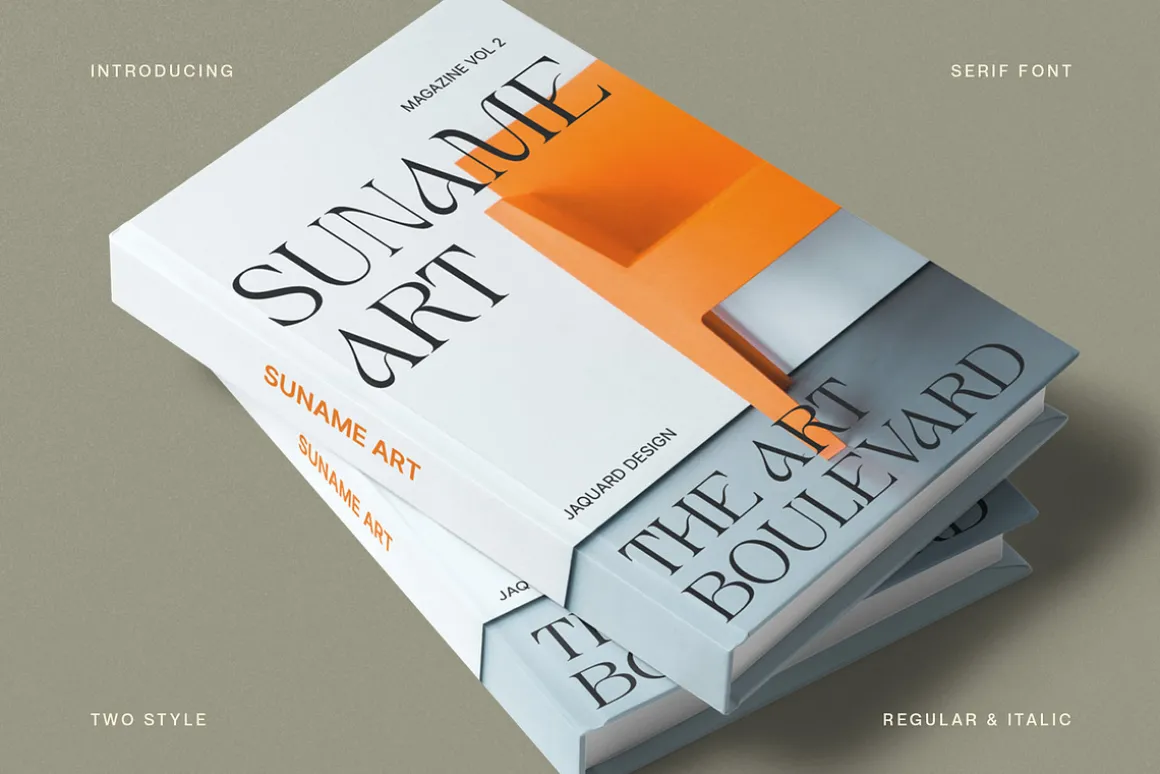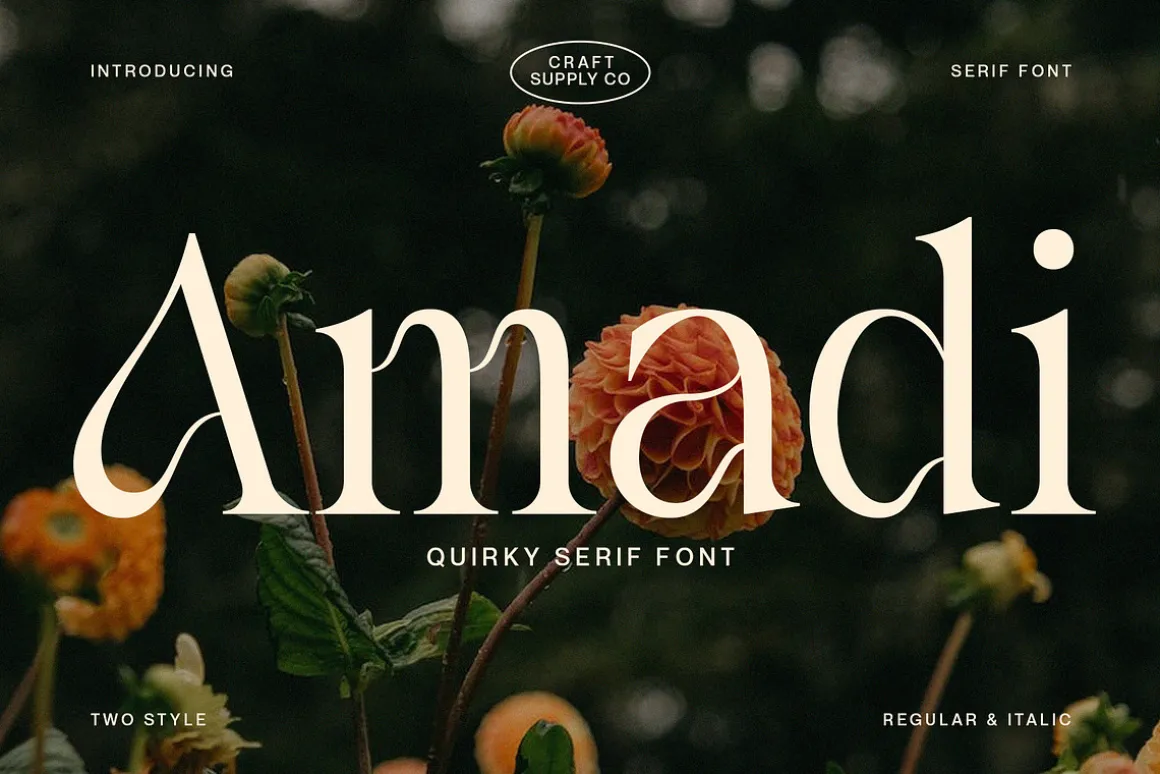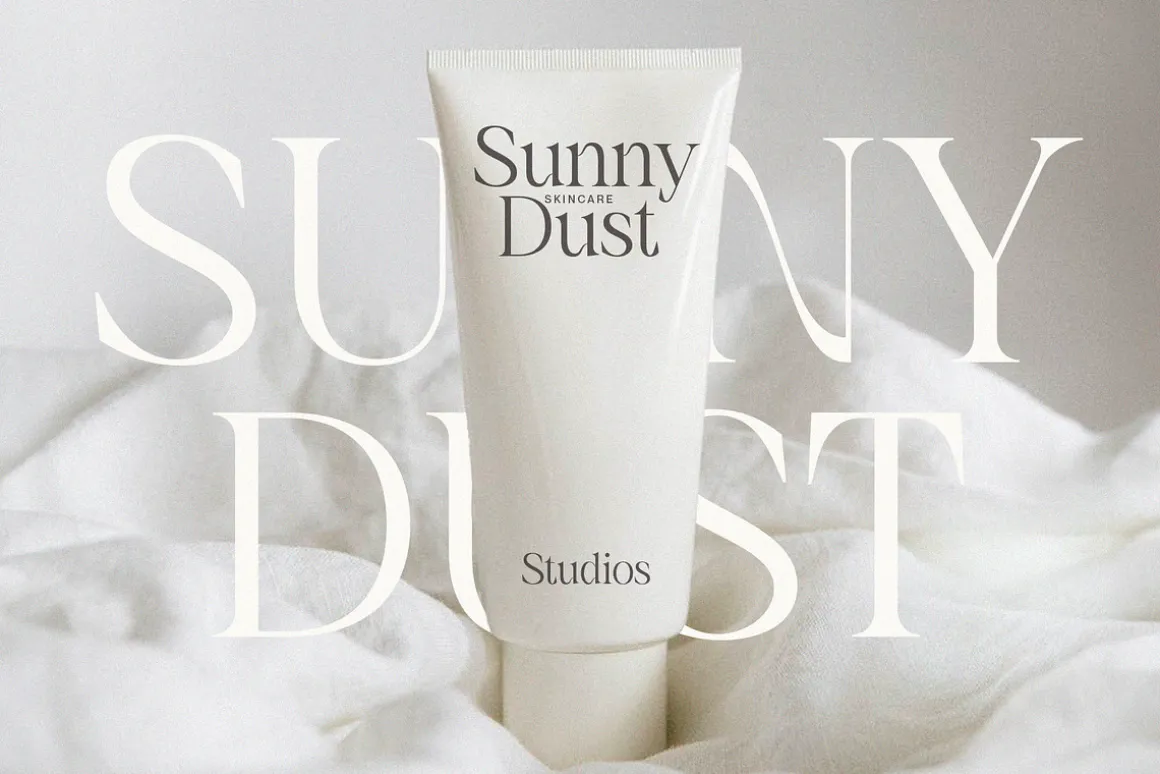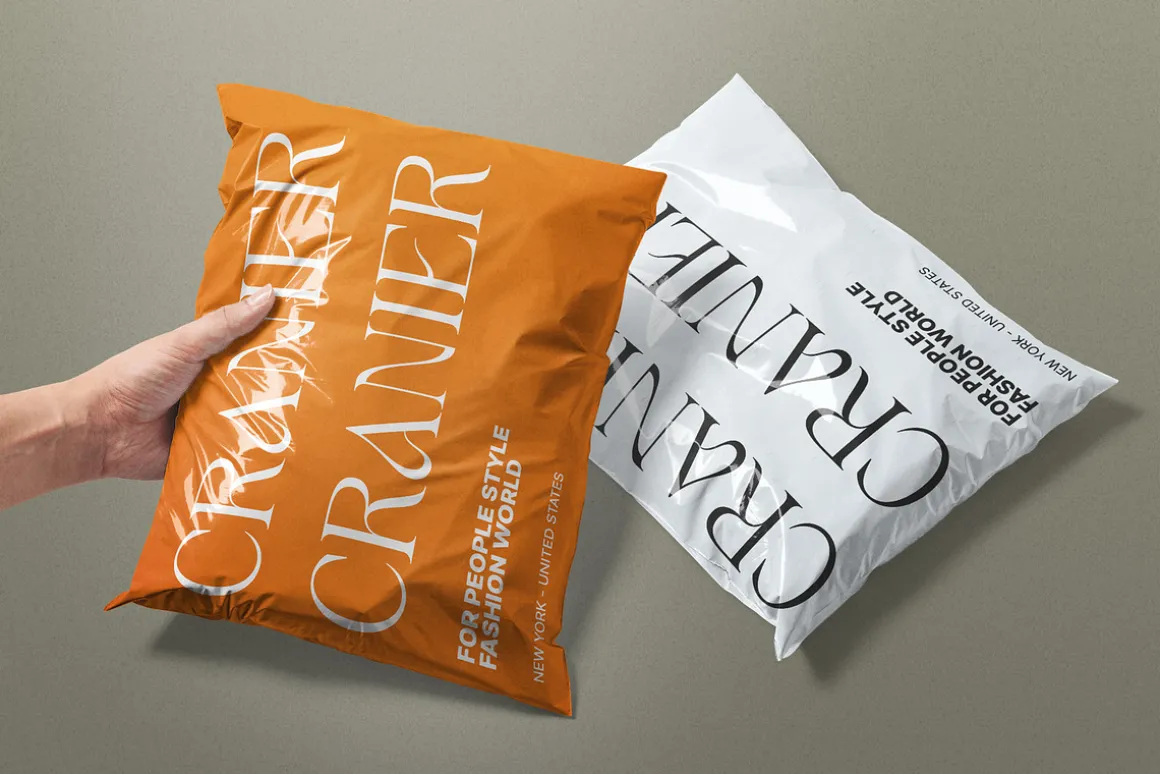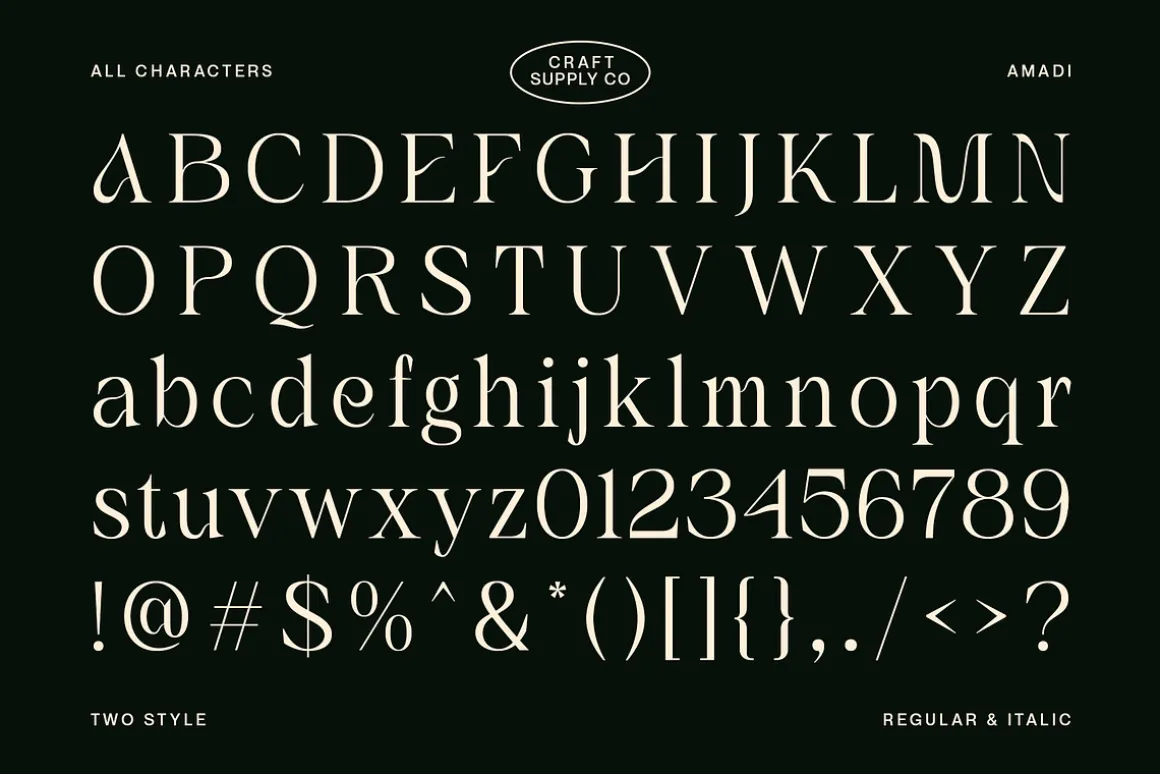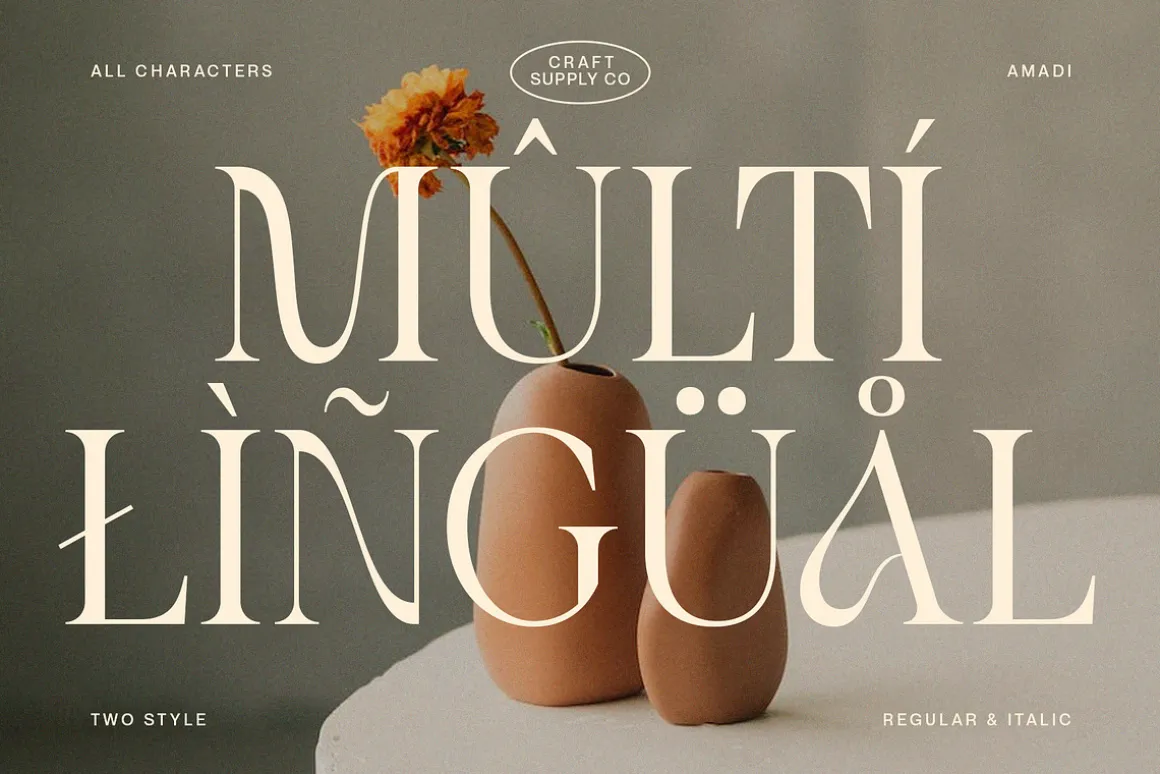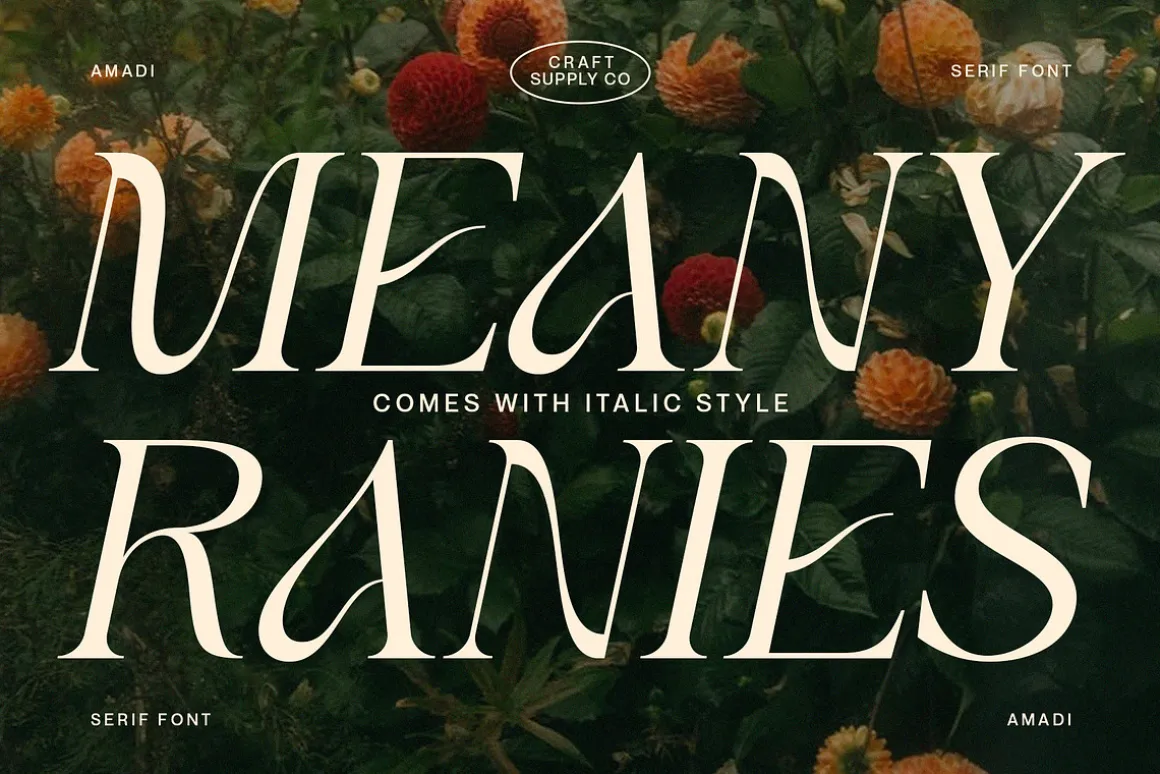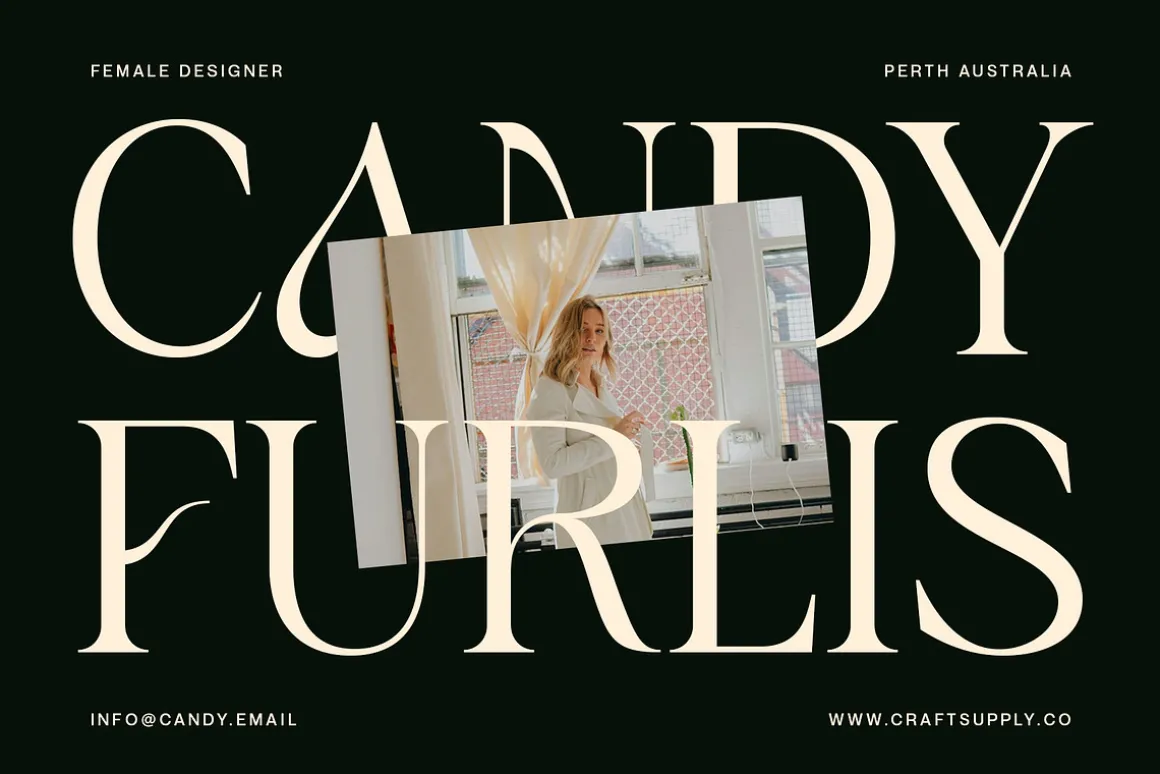
Amadi – Quirky Serif Font is a delightful typeface that dances to its own beat, infusing a dash of whimsy and charm into your designs. With its quirky serifs and playful letterforms, Amadi takes the traditional serif style and gives it a whimsical twist. This font is the perfect choice for projects that aim to stand out and make a statement with a touch of quirkiness.
Whether you’re working on invitations, posters, or any creative endeavor, Amadi adds a distinctive and charismatic touch. Its irregular flows and unique character shapes inject a sense of fun and individuality into your designs. Amadi is like a joyful dance in the world of typography, making it an excellent choice for projects that want to break free from convention and embrace a playful, quirky spirit.
- Amadi Regular
- Amadi Italic
- Uppercase and lowercase characters
- Numerals and Punctuation (OpenType Standard)
- Accents (Supports Multilingual Characters)